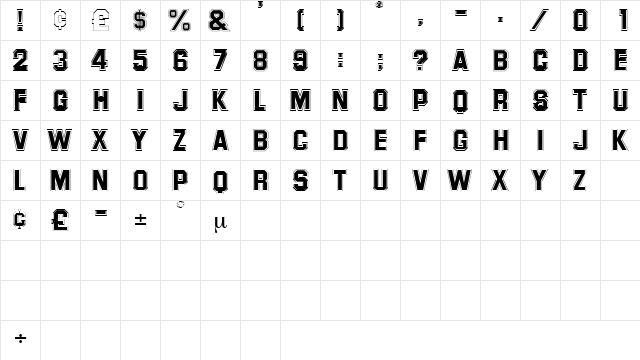
LetterSweaterSansOutlineCapsSSK Regular
Design Context for LetterSweaterSansOutlineCapsSSK Typeface
LetterSweaterSansOutlineCapsSSK is built around its visual character rather than neutral utility — its distinctive forms are designed to make an impression at display sizes.
Font Pairing: Pair with a clean neutral sans-serif for body copy to let LetterSweaterSansOutlineCapsSSK's character lead without overwhelming the composition.
Pro Tip: Treat LetterSweaterSansOutlineCapsSSK as the centrepiece of your typographic hierarchy. One strong heading set in a decorative face can carry an entire layout.